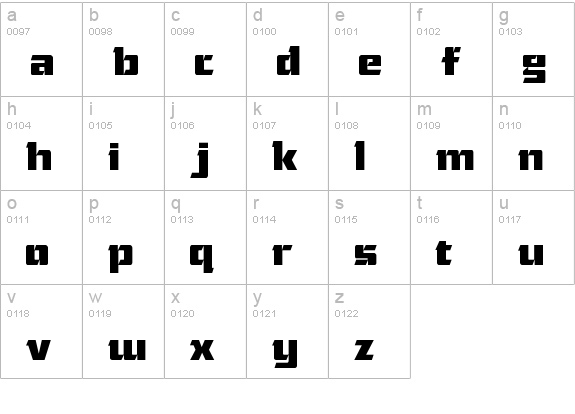
Chisel Regular is the standard, neutral variant in the Chisel typeface family \xE2\x80\x94 well suited to general body text, paragraphs, and standard typographic work.
Chisel Regular font is a versatile and modern typeface that combines sleek lines with a sharp, chiseled edge. This font is perfect for making a bold statement in your designs, whether for branding, headlines, or signage. Its clean and geometric letterforms exude a sense of strength and sophistication. Best of all, Chisel Regular font is available for free download at FontsMarket.com. You can easily access this font and enhance your projects with its unique style and impact. Whether you're a designer, artist, or content creator, Chisel Regular font is a valuable addition to your font library. Download it today and elevate your designs with this striking and powerful typeface.